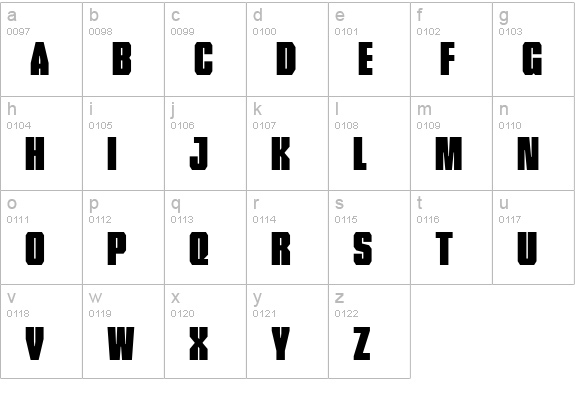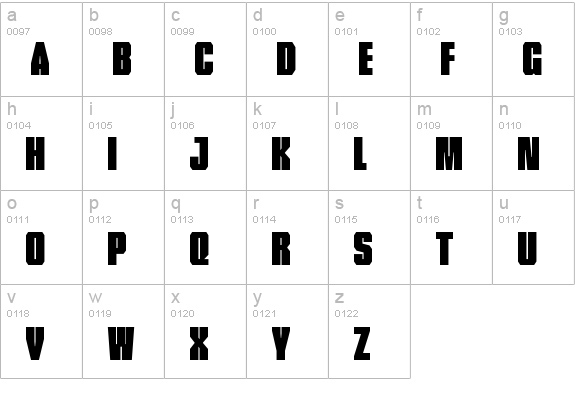
Tank Font Details
Tank font is a bold and sturdy typeface that exudes power and strength. Its thick lines and sharp corners give it a commanding presence, making it perfect for headlines, logos, and branding materials. The letterforms are carefully crafted to convey a sense of durability and reliability, making Tank font a versatile choice for a wide range of design projects. Best of all, Tank font is available for free download at FontsMarket.com. This means you can easily add this striking typeface to your font library without any cost, allowing you to create impactful designs without breaking the bank. Don't miss out on the opportunity to enhance your projects with the impressive Tank font, now just a click away at FontsMarket.com.